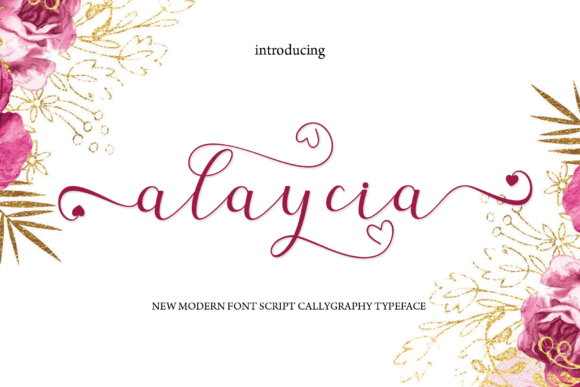
Embark on a mesmerizing typographic journey with Alaycia Font, a script font that dances across your digital canvas with grace and elegance. Created by the talented MYdesign, this extraordinary font family captivates with its gorgeous swashes and enchanting curves, adding a touch of magic to every design.
Indulge in the beauty of Alaycia's calligraphy style, a testament to the timeless art of handwritten expression. Each character flows effortlessly, connecting with its neighbors in a harmonious symphony of strokes. The elaborate swashes, like delicate tendrils, add an air of whimsy and sophistication, making your designs come alive with a dynamic energy.
With Alaycia, you have the power to transform ordinary words into captivating works of art. Whether you're crafting logos, branding materials, invitations, or social media posts, this font will elevate your designs to new heights of creativity and engagement. Its versatility knows no bounds, allowing you to seamlessly blend it into a variety of projects, from elegant wedding invitations to playful social media graphics.
Alaycia's charm lies in its ability to evoke emotions and create lasting impressions. Its elegant curves and graceful swashes convey a sense of romance, warmth, and sophistication, making it the perfect choice for designs that aim to capture hearts and minds. Let your imagination soar as you explore the endless possibilities that await you with Alaycia Font.